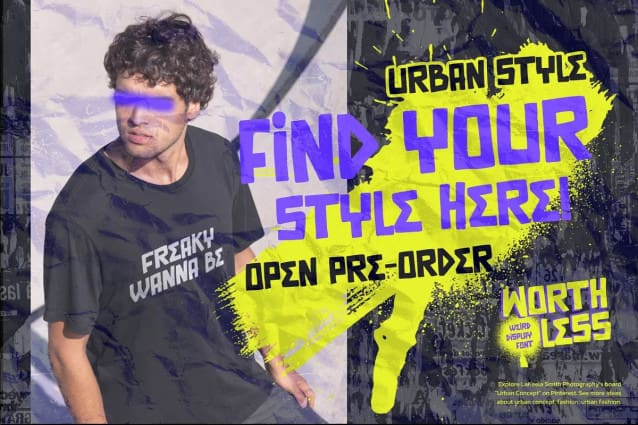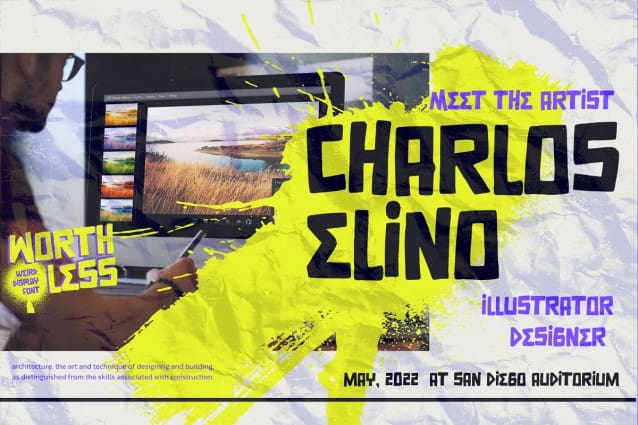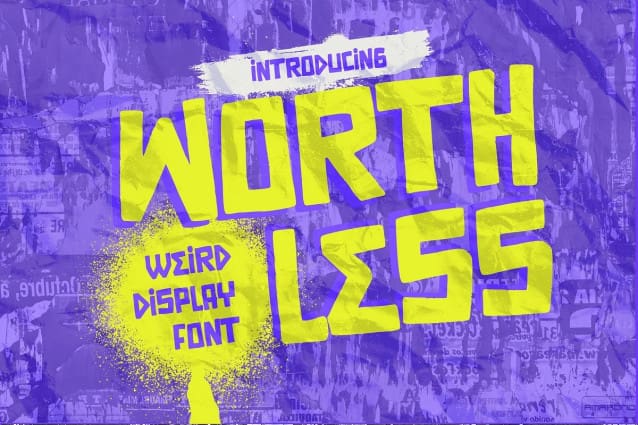
Worthless Display Font
Worthless Display Font, It’s Weird Display Font is a Natural Style and Authentic classy style, this font is great for your creative projects such as watermark on photography, and perfect for logos & branding, invitation,advertisements,product designs, stationery, wedding designs,label ,product packaging, special events or anything that need handwritting taste.
WORTHLESS Display  a natural Hand Drawn feel. This handmade font will make your design has a beautiful natural touch for each details. It is perfect for any design project as Invitation,logo, book cover, craft or any design purposes,photos, photography overlays, signs, window art, scrapbooking, tags and so much more! It is perfect for any design project as Invitation,logo, book cover, craft or any design purposes.